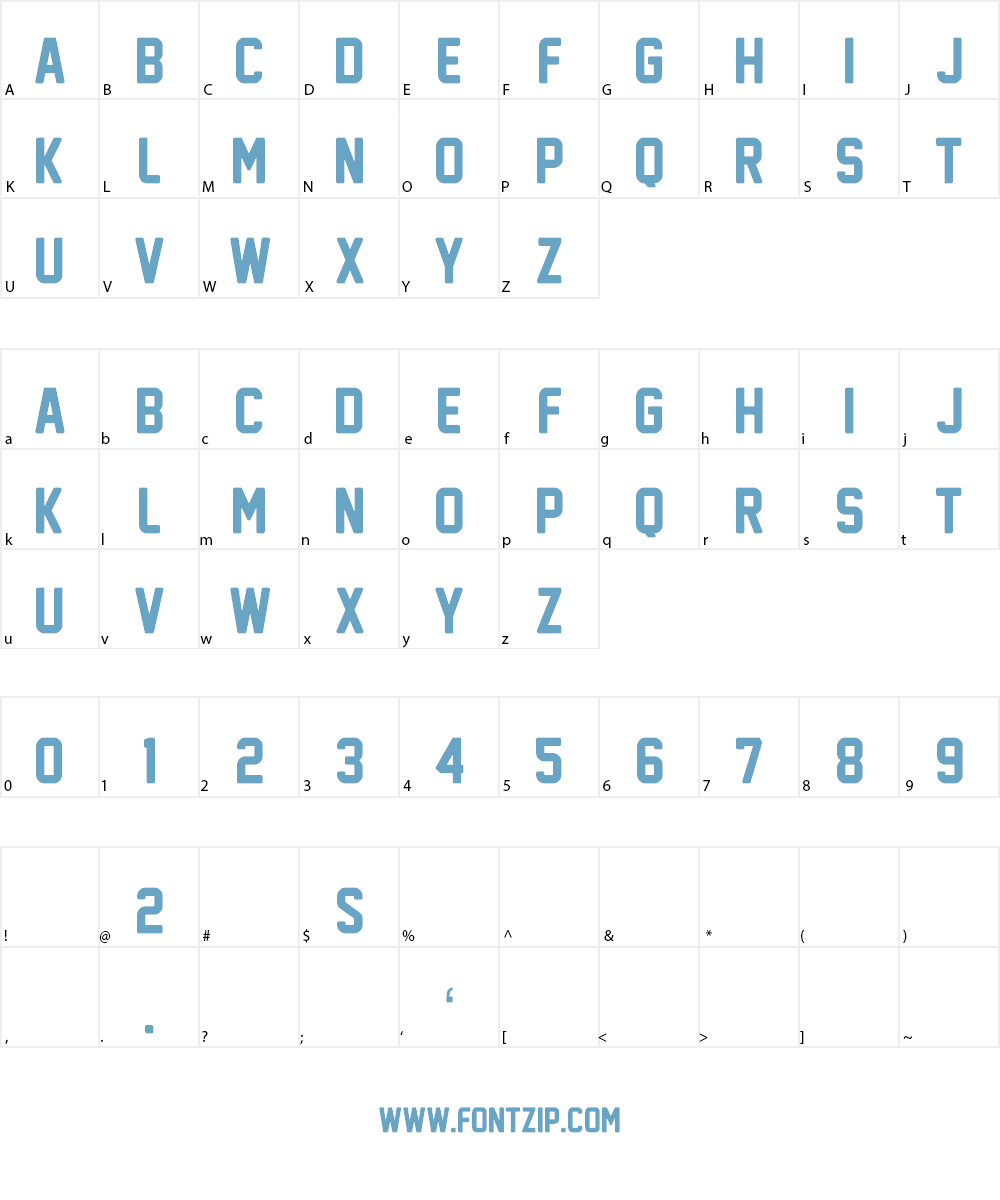
Modern twist to a classic sports font. Ideal for apparel design and naming sports jerseys. The dollar ($) key holds an alternate glyph for the letter 's'. The left and right curly brackets hold alternate glyphs for numbers '2' and '5'.